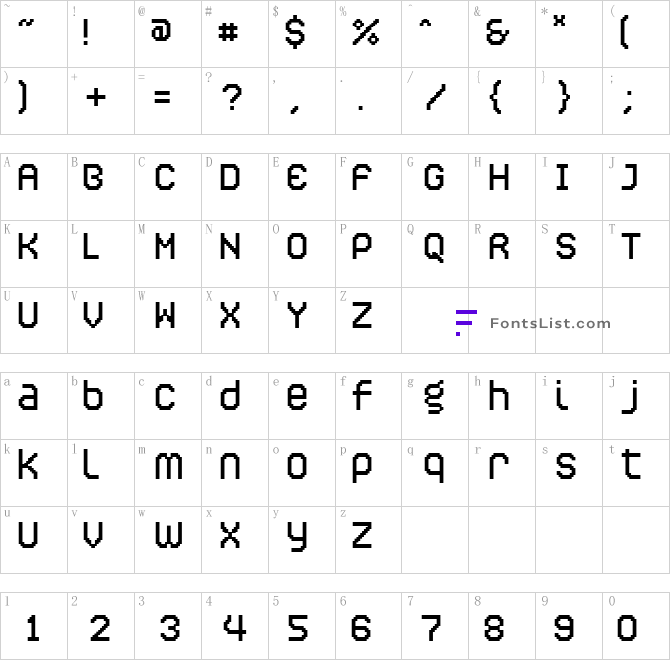
- Font Name:Caliper
- Subfamily:Stairstep
- Subfamily:Caliper Stairstep
- Full Name:Caliper Stairstep
Caliper-Stairstep.ttf is a very beautiful artistic font, Caliper-Stairstep.ttf is widely used in the design and printing of various books and pictures,Caliper-Stairstep.ttf has a strong visual impact,Caliper-Stairstep.ttf is a commonly used font in newspapers, magazines and books, and is used in posters, e-commerce Poster design, store design, logo design, font design and other fields.Caliper-Stairstep.